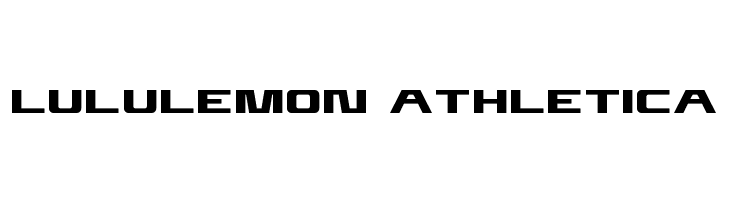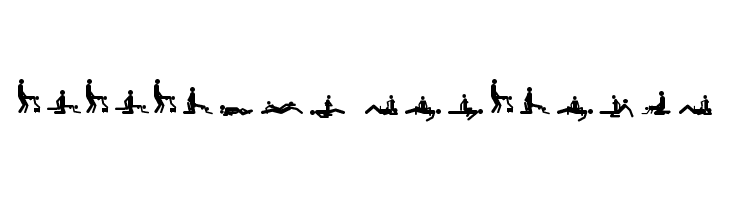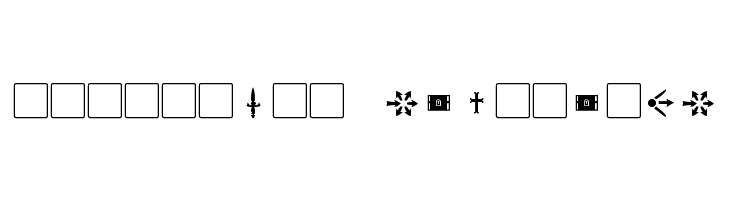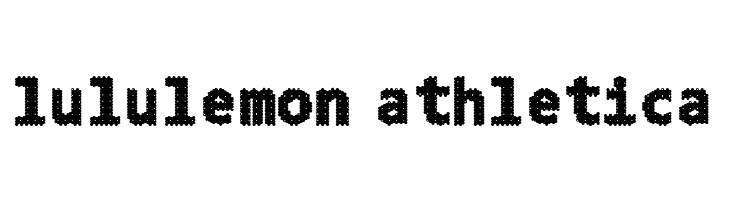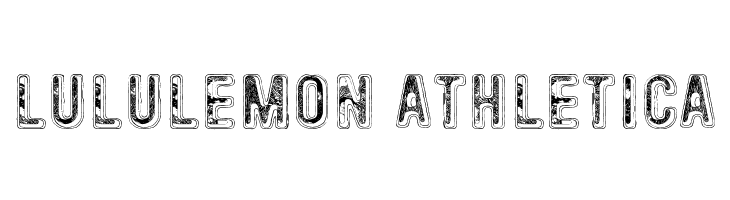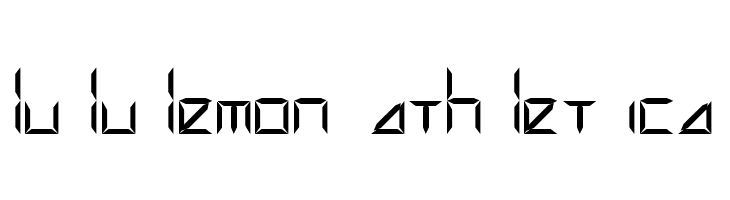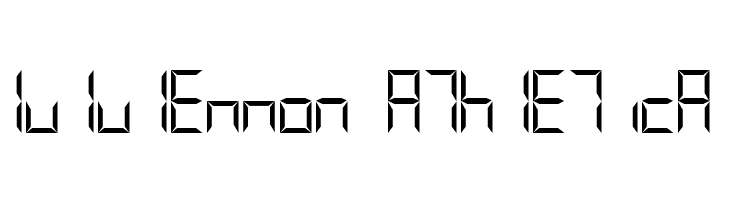
A geometric, grid-based font with a modern, digital aesthetic.
A bold, distressed font with a textured, vintage appearance.
A bold, distressed font with a vintage, textured appearance.
A bold collection of pictographic symbols ideal for gaming and thematic designs.
A geometric, angular font with a digital, futuristic style.
A digital, segmented font with a futuristic, technological style.
A bold, stencil-style font with geometric shapes and sharp angles.